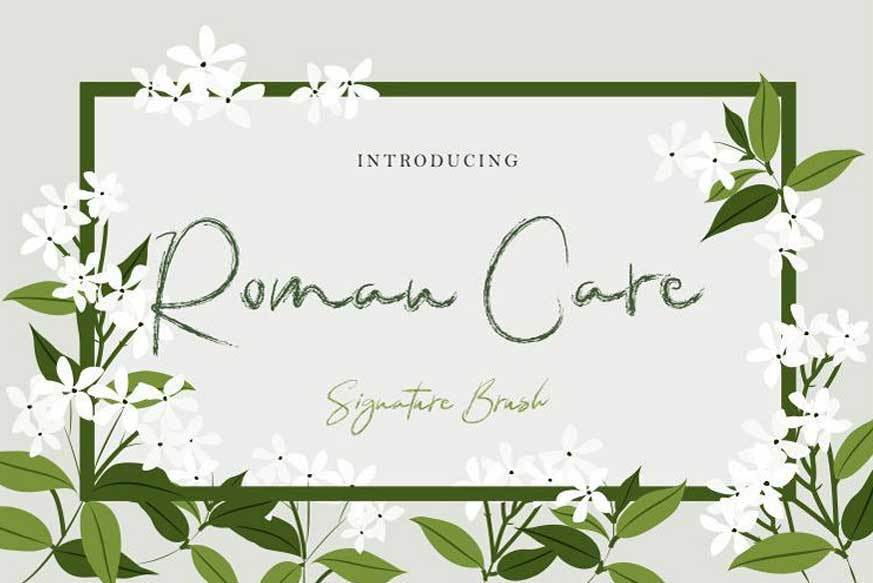
Roman Care Font
Roman Care signature brush fonts, the original and natural fonts with Brus style, can be used in several designs of your needs such as: laws, logos, weddings, magazines, books, banners, business cards etc., and also support many languages.